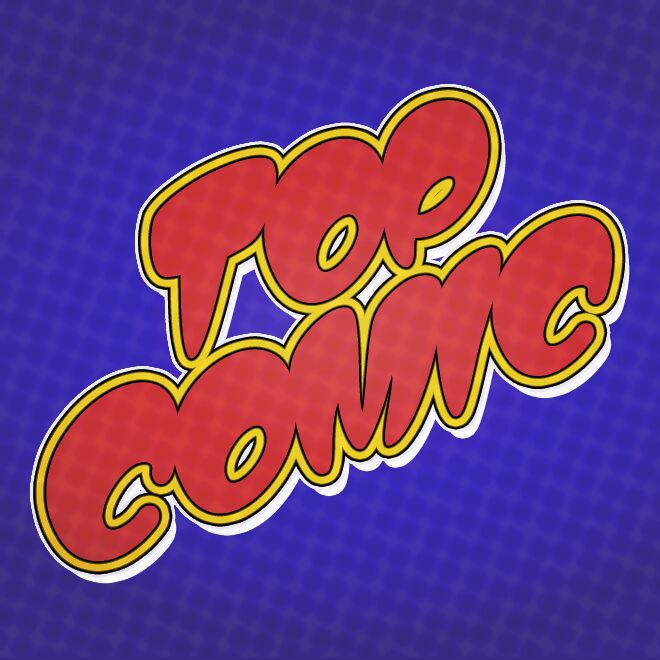
Top Comic by Måns Grebäck is a free comic display font with oversized, tightly joined letters and an emphatic forward lean. Its rounded masses are cut by sharp wedges and pinched joins, creating a fast, elastic silhouette that recalls action-comic sound effects and exuberant hand-drawn logos. Several characters stretch into sweeping horizontal strokes, so the whole line appears compressed and in constant motion.
Youth-focused snack brands or skate shops could use its dense, unruly lettering on packaging and merchandise, with the word shapes functioning almost like graphic emblems. It also fits music posters and animated entertainment aimed at audiences drawn to loud, mischievous graphics.